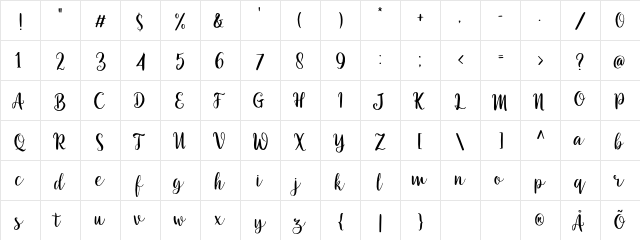
Eternal Lights Script Regular
Design Context for Eternal Lights Script Typeface
Eternal Lights Script flows with the natural rhythm of handwritten lettering, making it ideal for designs that call for warmth and personal expression. The delicate stroke weight brings airiness and refinement to layouts.
Font Pairing: Combine Eternal Lights Script with a simple geometric sans for maximum contrast — the tension between flowing curves and clean structure is a classic typographic pairing.
Pro Tip: Use Eternal Lights Script for short runs of text — names, titles, or taglines. Extended body copy in script faces tires the eye quickly.